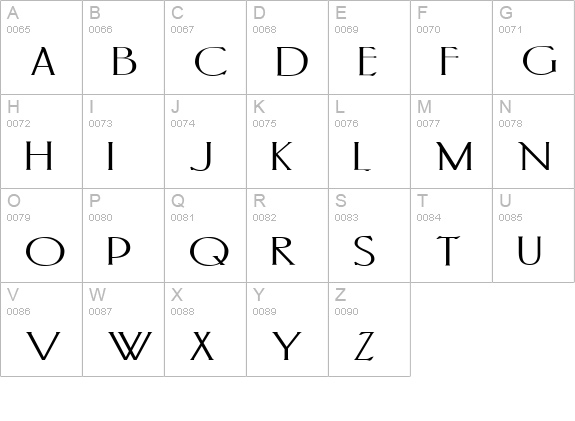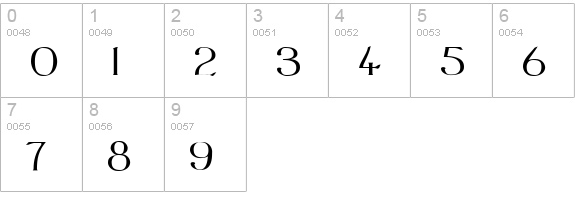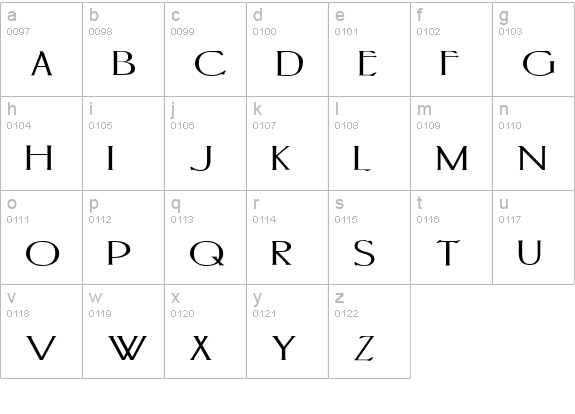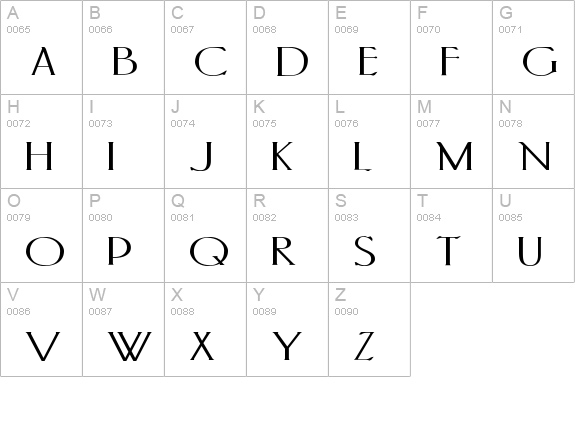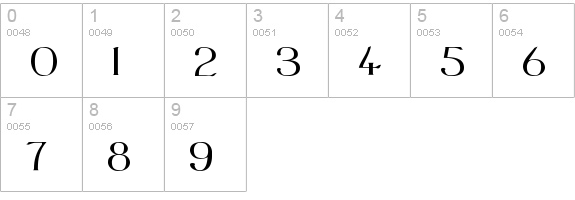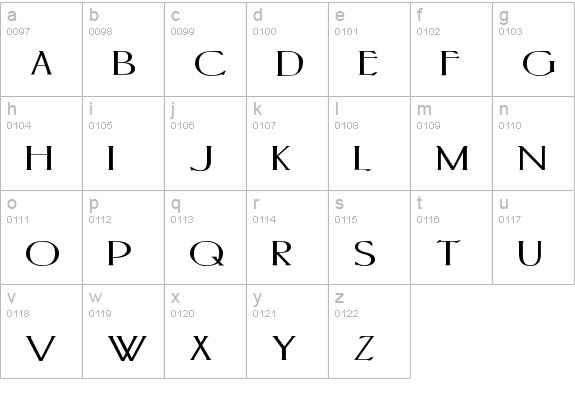
PortlandRoman Bold Font Details
PortlandRoman Bold is a strong, high-contrast variant in the PortlandRoman typeface family \xE2\x80\x94 well suited to headlines, attention-grabbing titles, and strong calls-to-action.